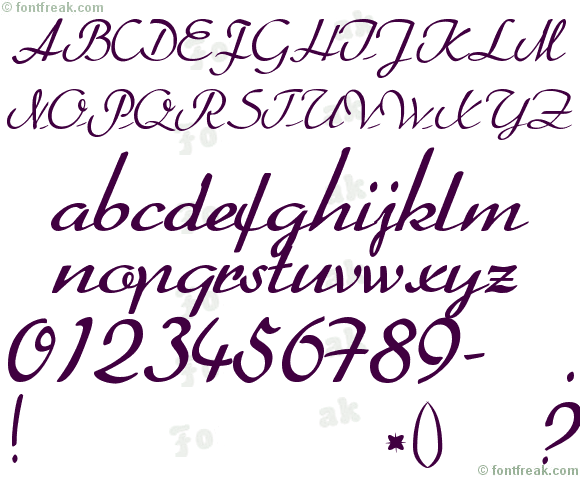
BetterHeatherRegular
About BetterHeatherRegular
BetterHeatherRegular, designed by Mario Arturo, is a captivating script font that combines elegance with a touch of whimsy. This font features fluid, sweeping curves and a slightly playful demeanor, making it an ideal choice for projects that require a personal and inviting touch. The stroke weight is consistent, providing a harmonious flow, while the contrast between thick and thin lines adds depth and character. The spacing between letters is well-balanced, ensuring readability without sacrificing its artistic flair.
This font is particularly suited for a variety of creative applications. Wedding invitations benefit from its romantic feel, evoking emotion and warmth. It can also enhance the charm of restaurant menus, making dishes appear more enticing with its graceful lettering. For event posters, such as art shows or poetry readings, BetterHeatherRegular adds a sophisticated yet approachable vibe. Additionally, content creators can utilize this font in social media graphics and branding materials to convey a friendly and artistic identity.
The target audience for BetterHeatherRegular includes graphic designers seeking to elevate their projects with unique typography, small business owners wanting to create memorable branding, and content creators looking for a font that resonates with their audience.
What sets BetterHeatherRegular apart is its versatility and ability to adapt to various styles while maintaining a distinct personality. Whether used in print or digital formats, this font captures attention and evokes feelings of warmth and creativity. For those interested in incorporating this charming typeface into their work, the BetterHeatherRegular font free download makes it easily accessible. With its elegant yet playful design, BetterHeatherRegular is sure to leave a lasting impression.